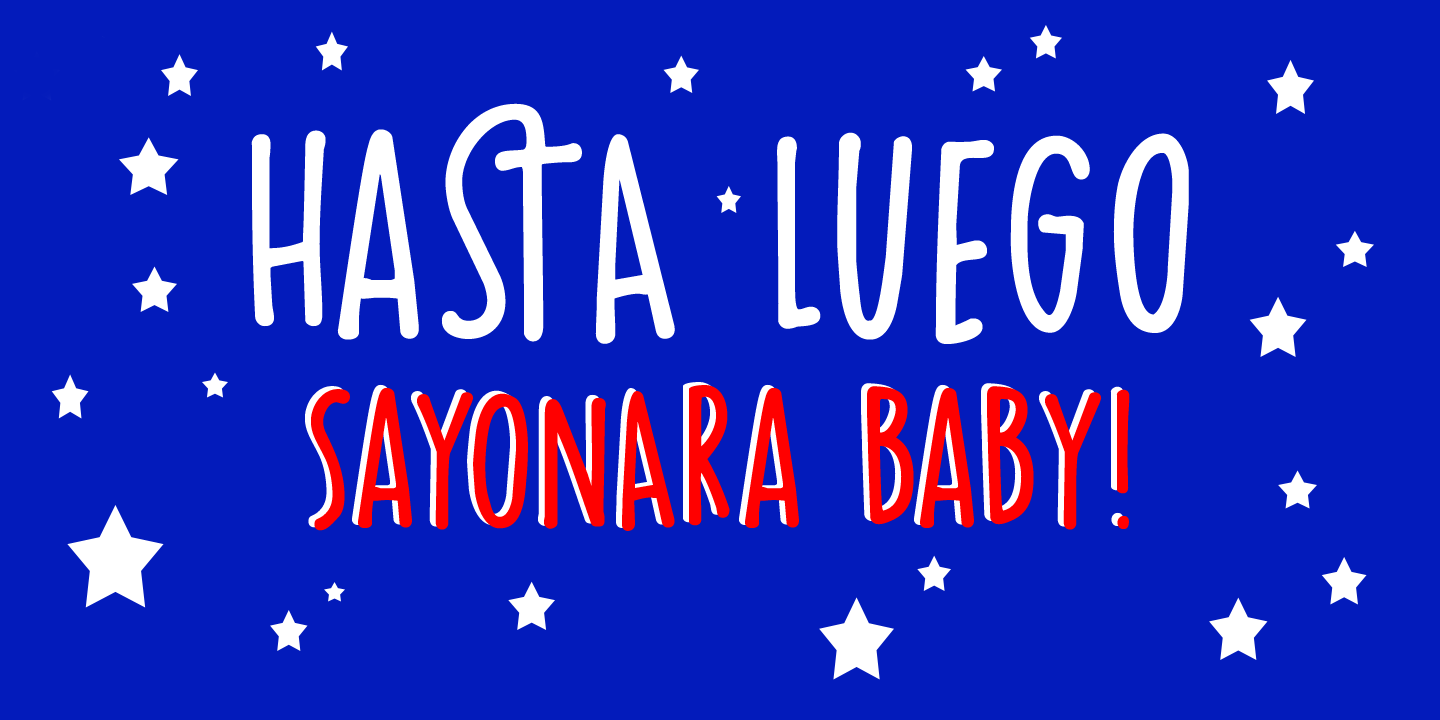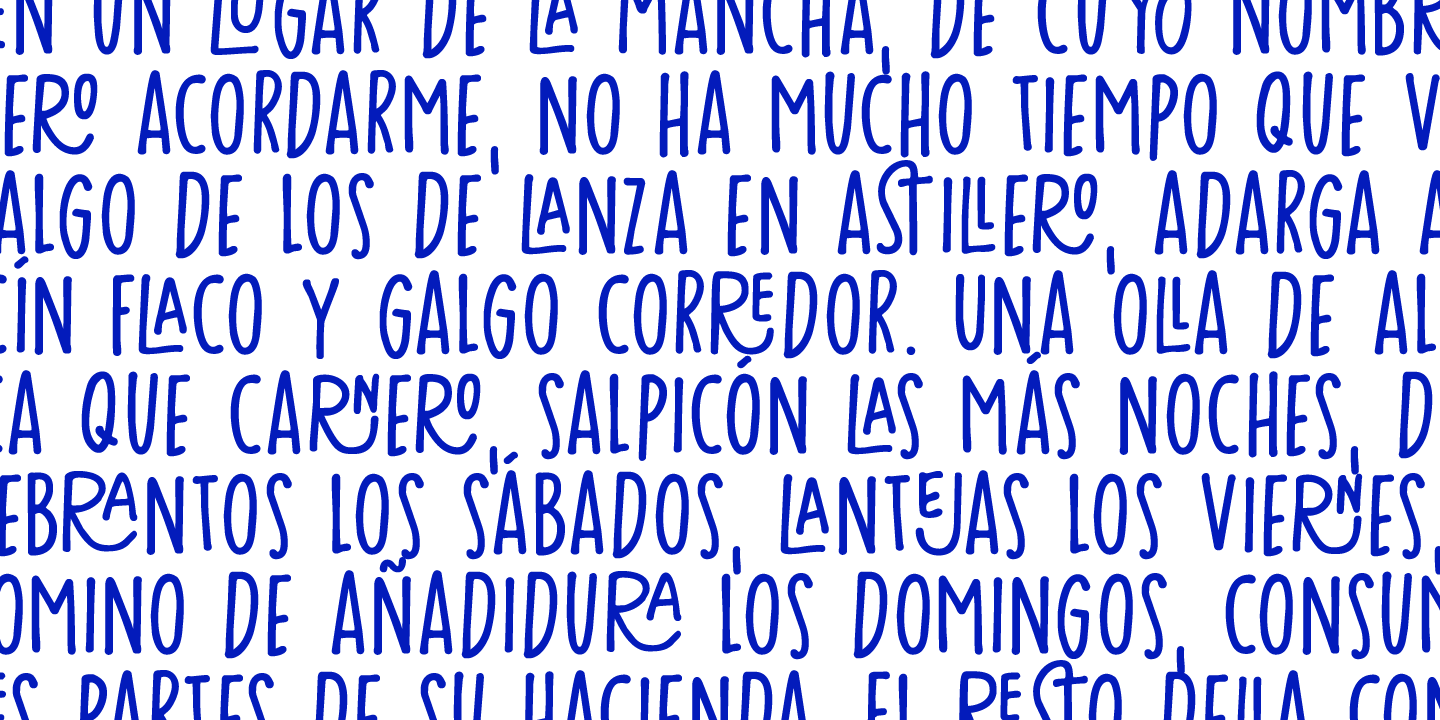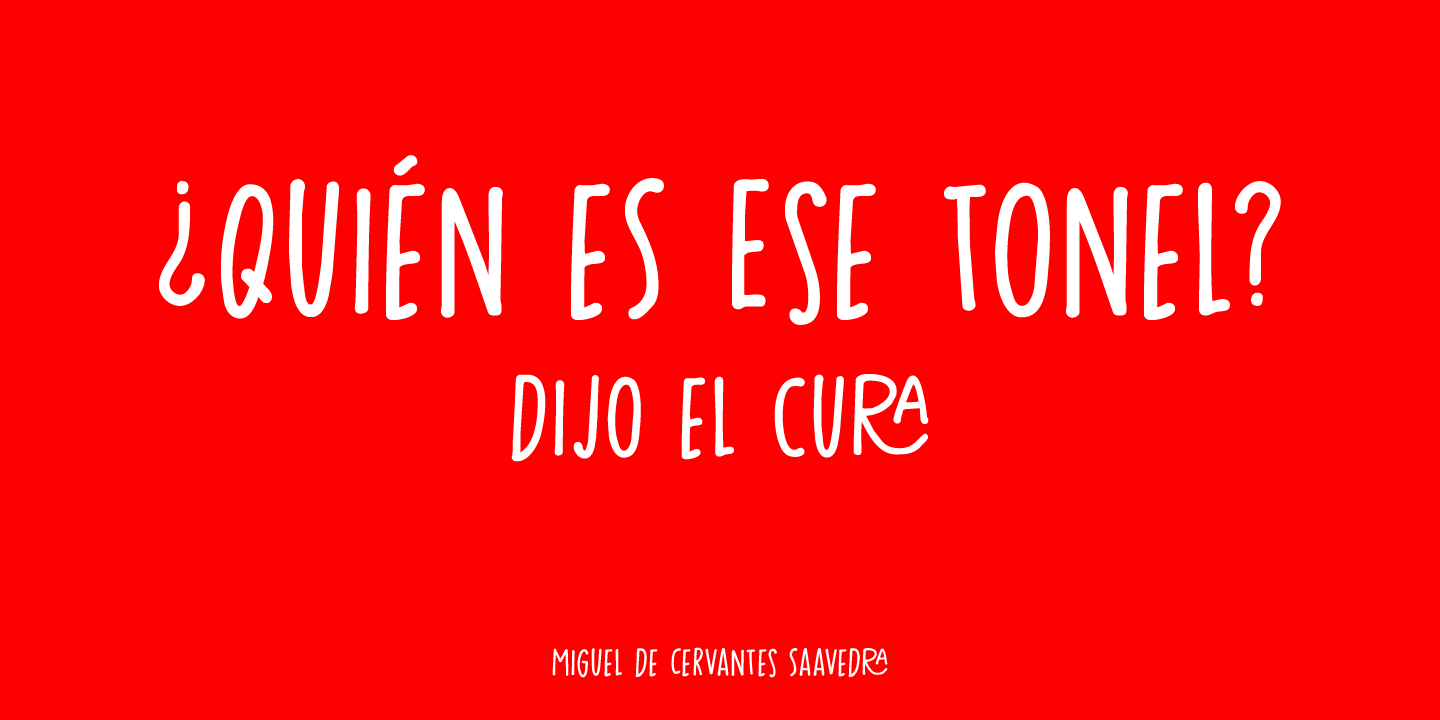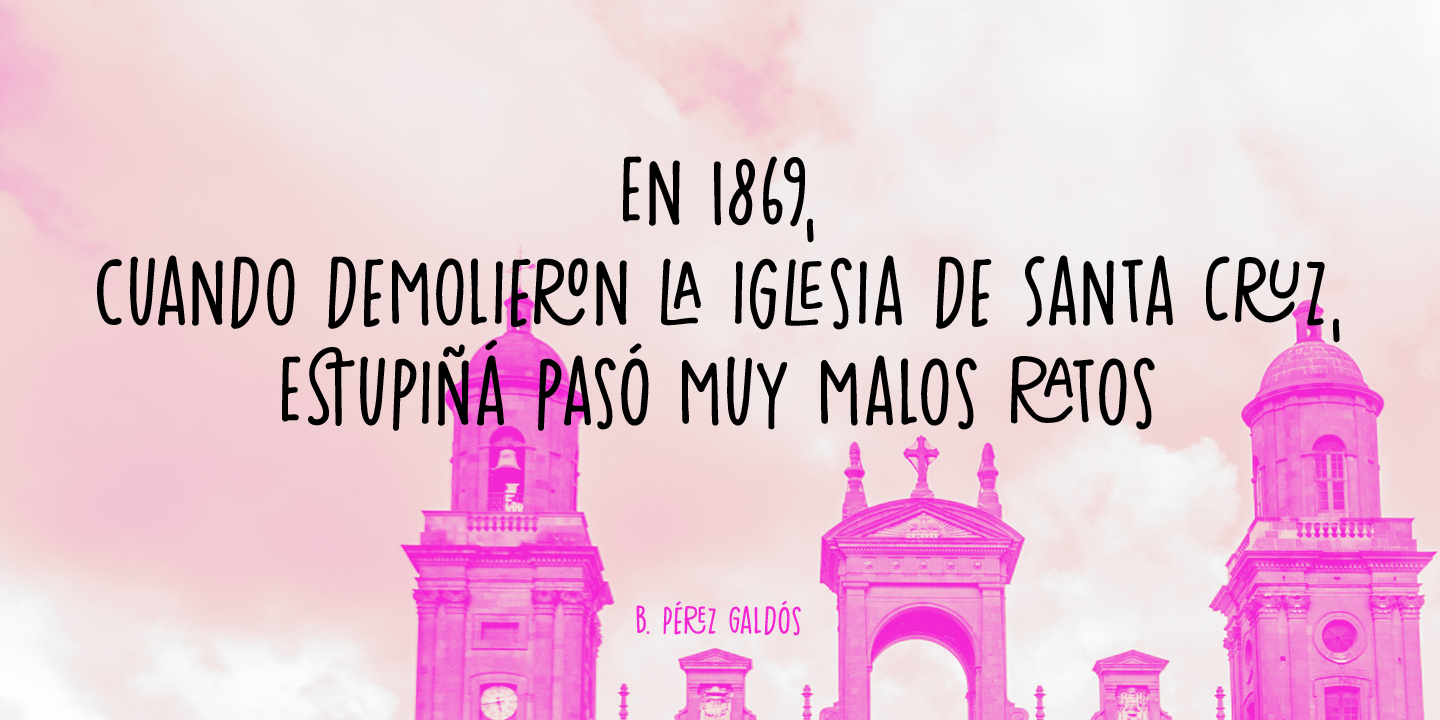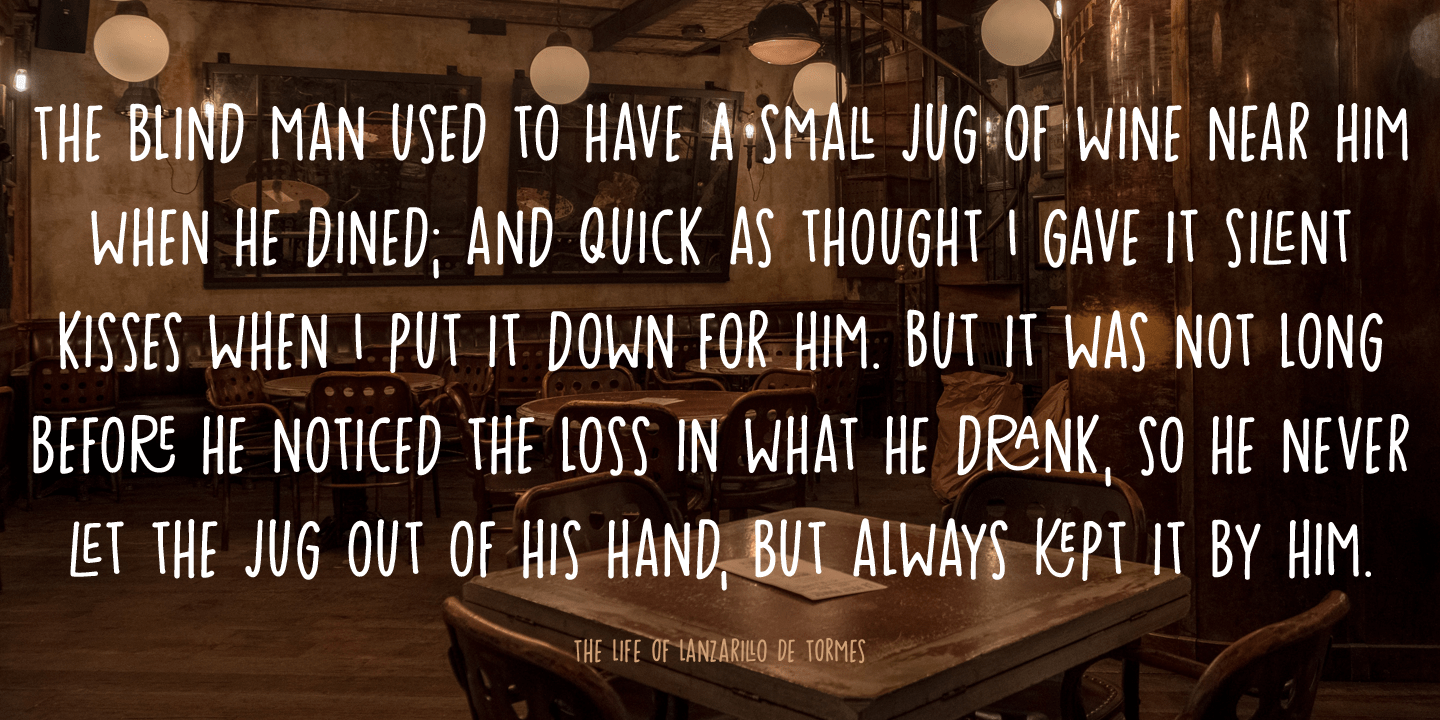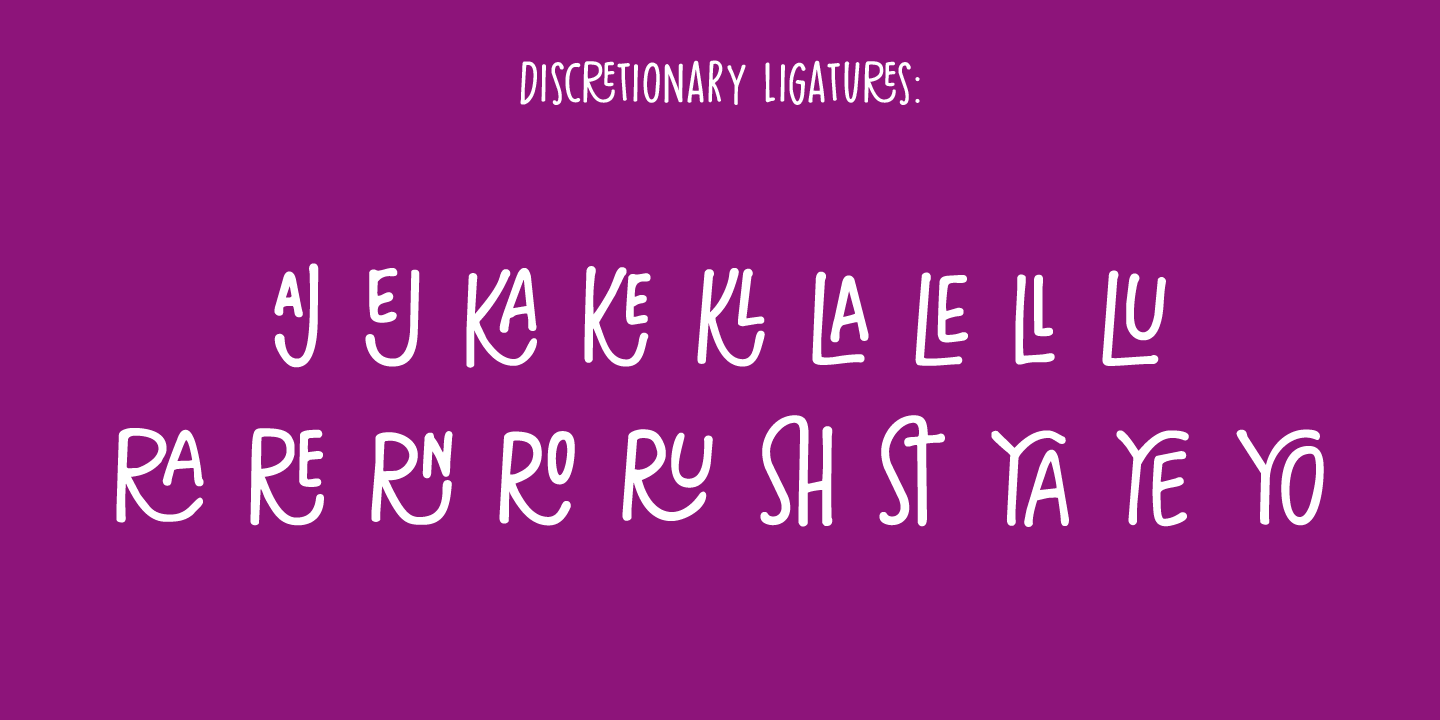
Hasta Luego
Font Family by Hanoded
Buy NowHasta Luego means 'see you later? in Spanish. It is something you say when parting, but it doesn't really mean you'll have to see each other again. Hasta Luego is a happy, all caps font. It's a bit random, a bit wobbly and it comes with some interesting discretionary ligatures for you to play with.